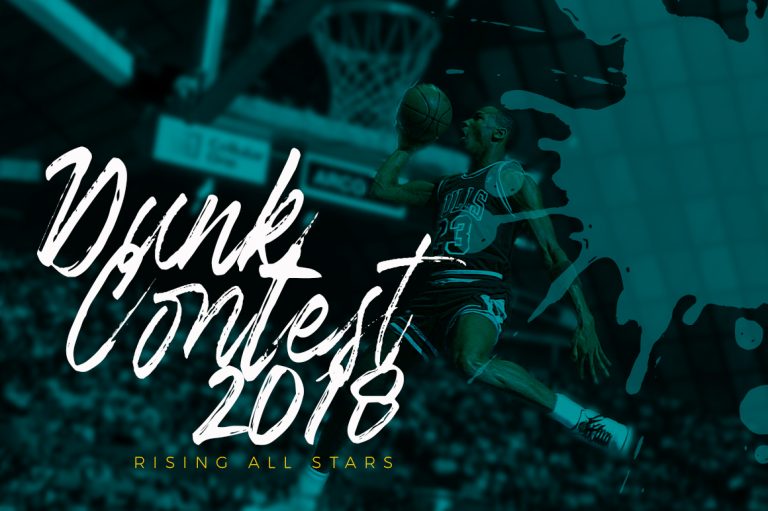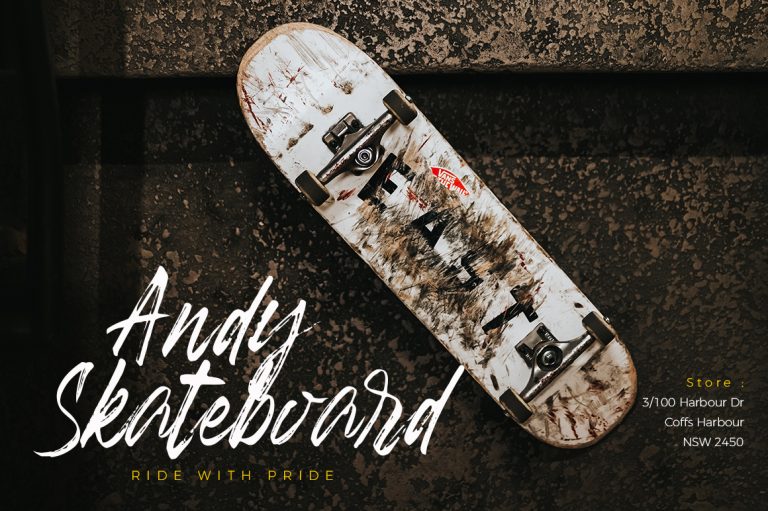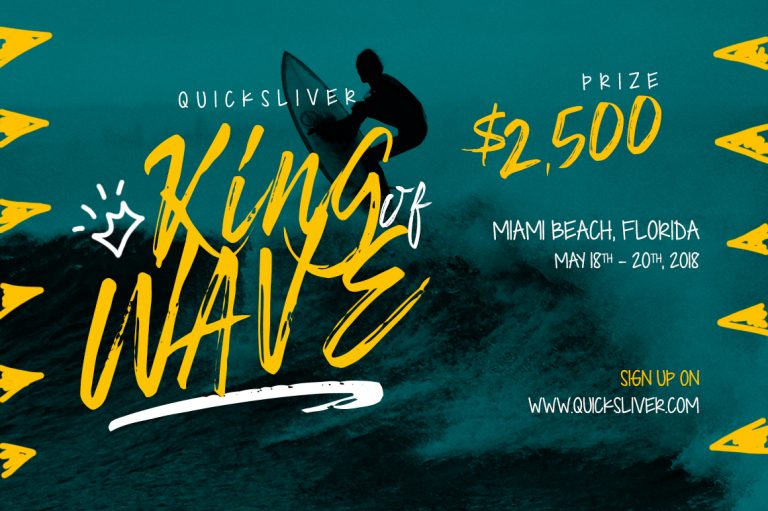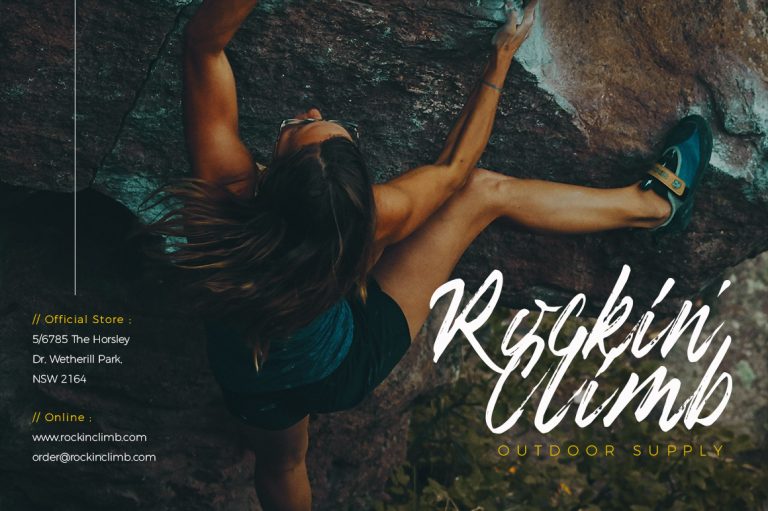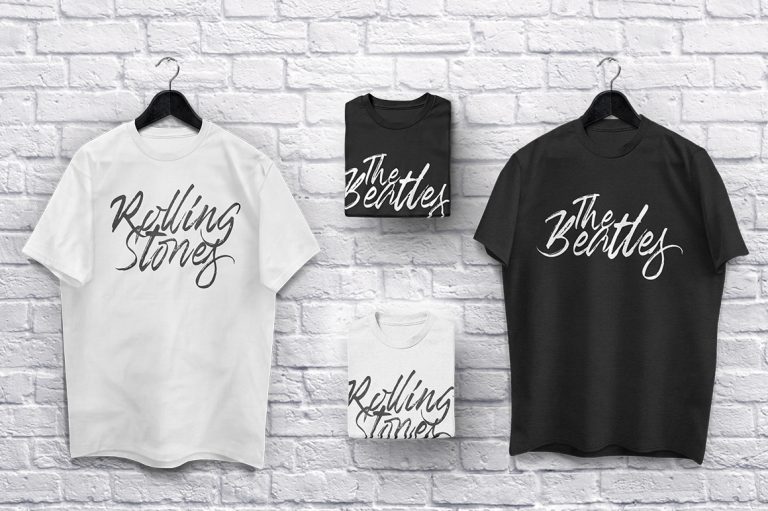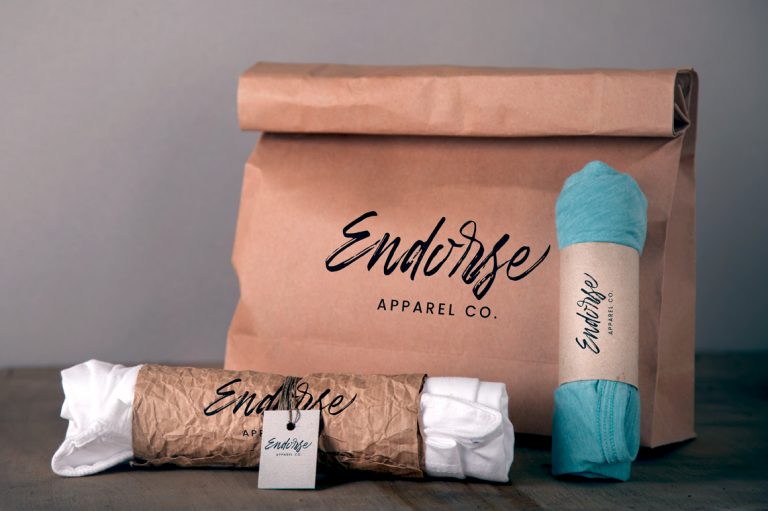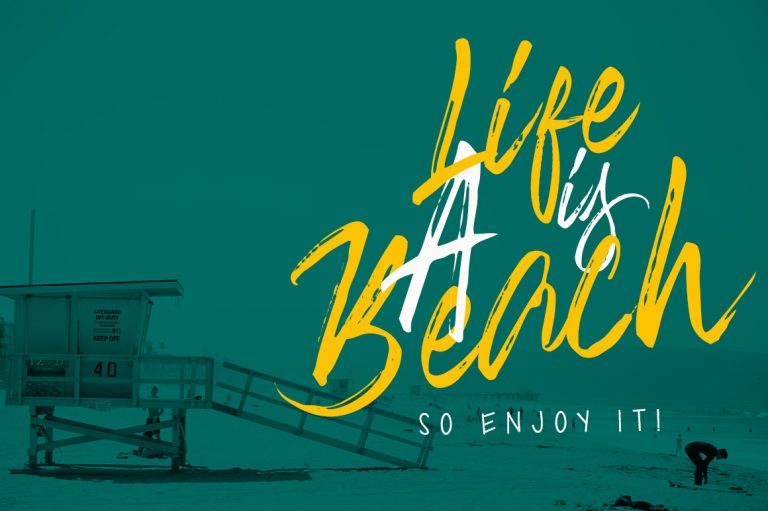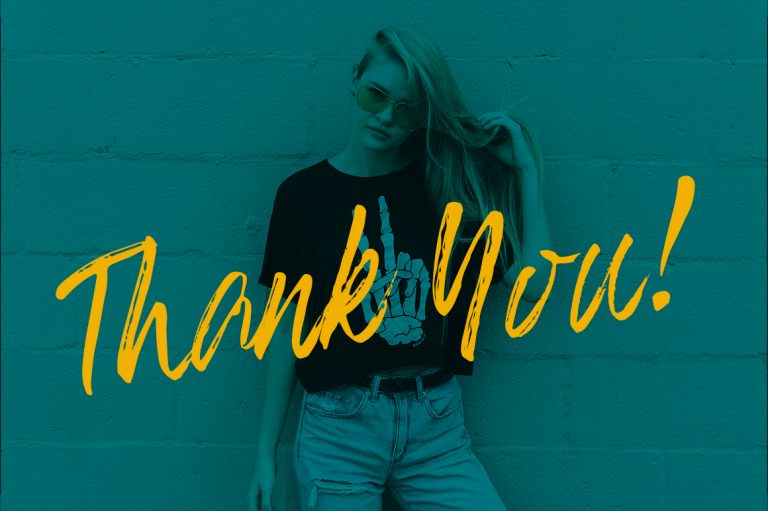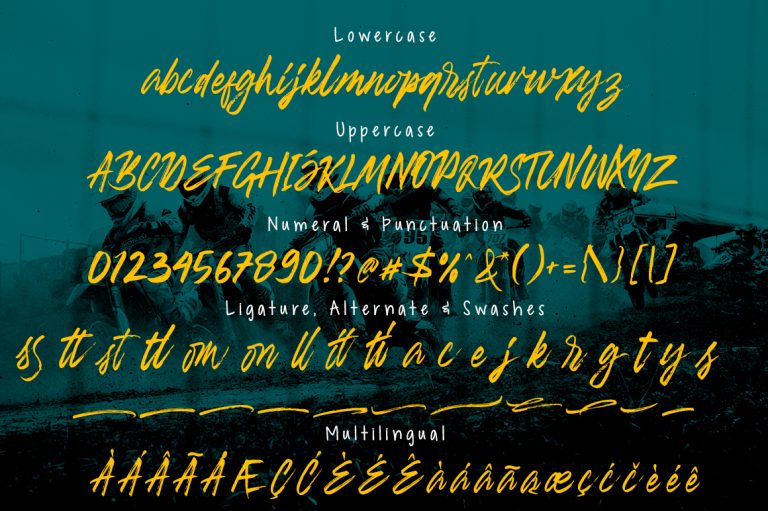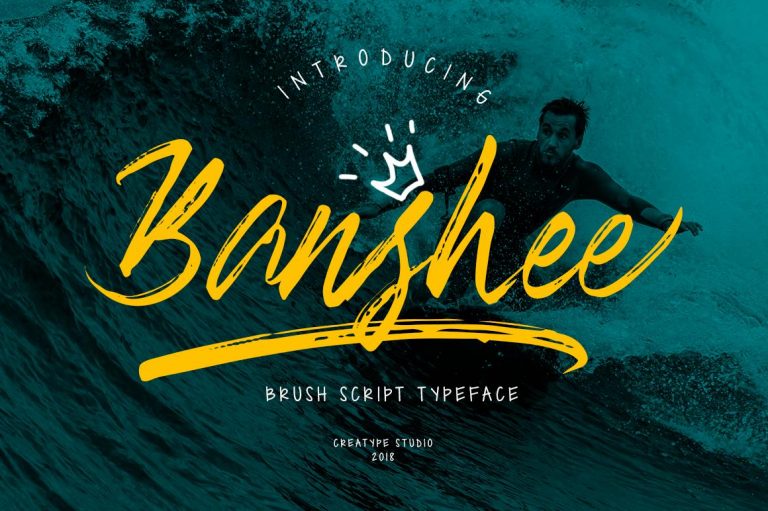
Introducing Banshee – A dry brush script font made from natural flow scratch with signature style.This font will bring your latest project looked more bold, sophisticated and modern.
Banshee is perfect for photography, watermark, social media posts, advertisements, logos & branding, invitation, product designs, label, stationery, wedding designs, product packaging, special events or anything that need handwriting taste.
- Ton of glyphs (include Uppercase, Lowercase, Numerals & Punctuations, Ligature, Swashes)
- Ligature & Stylistic alternate
- Fonts include multilingual support for; Afrikaans, Albanian, Catalan, Danish, Dutch, English, French, Hungarian, Icelandic, Italian, Spanish, Portuguese, German, Swedish, Norweigen, Polish, Indonesian, Turkish, Zulu
Banshee Brush Script